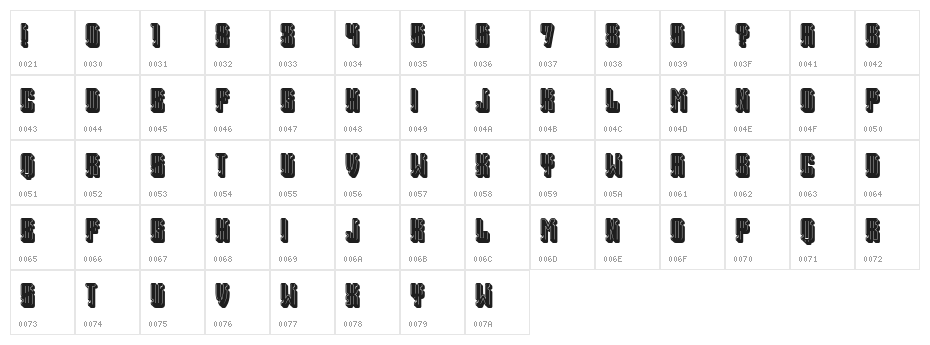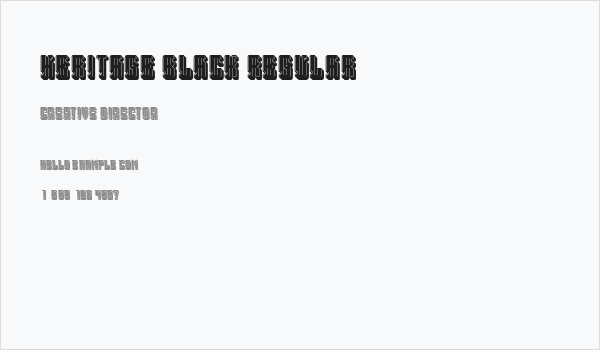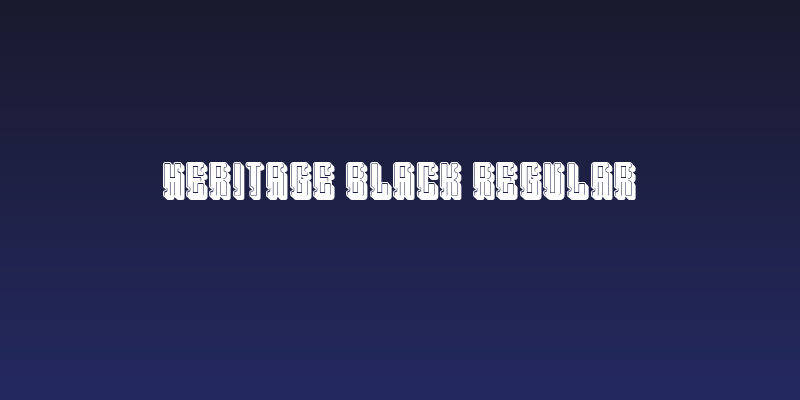
Heritage Black Regular Font
Heritage Black Regular Description
This font features a bold, decorative style with a strong, impactful presence. The characters are outlined with a thick black border, giving them a three-dimensional appearance. Each letter is designed with sharp angles and a blocky structure, reminiscent of vintage signage or classic Western typography. The uppercase and lowercase letters maintain a consistent style, ensuring uniformity across different text sizes. The numbers and special characters are equally bold and stylized, making them stand out in any design. This font is perfect for projects that require a strong visual impact and a touch of nostalgia.